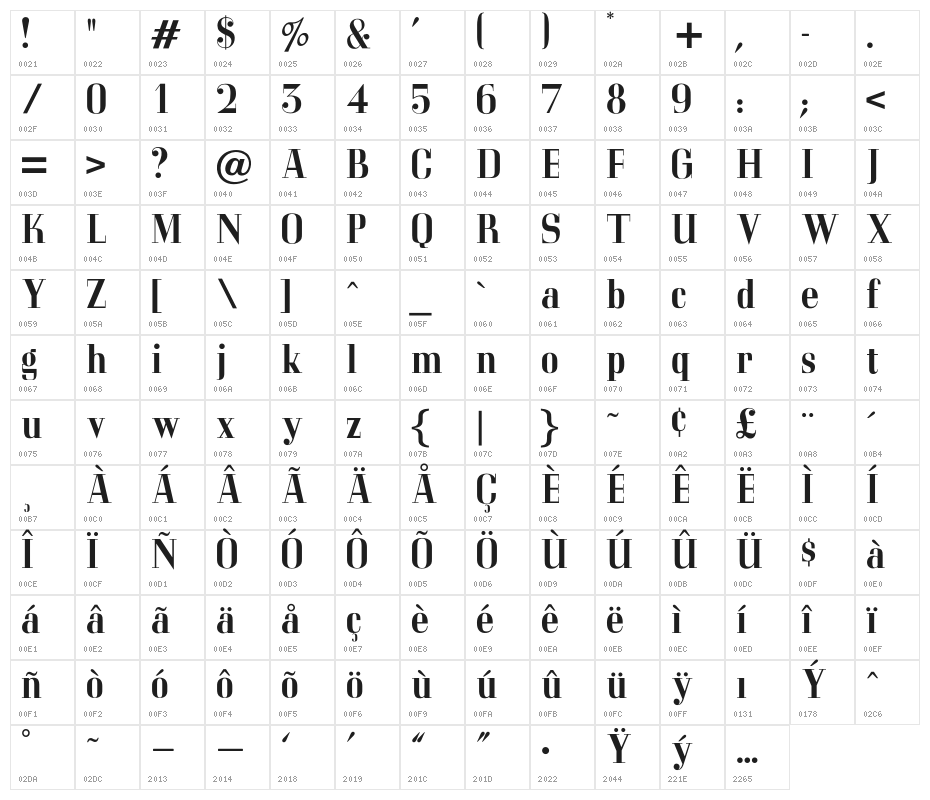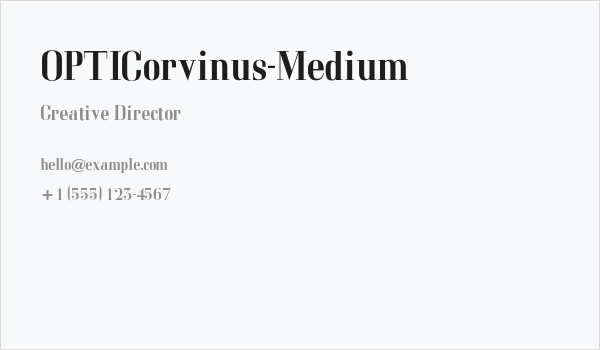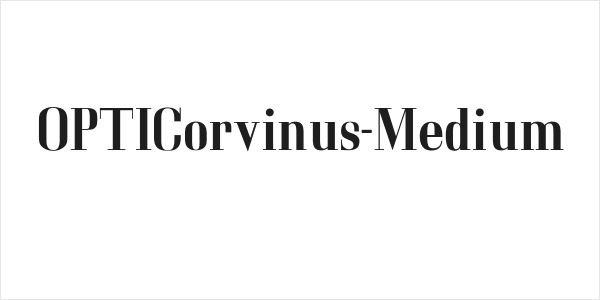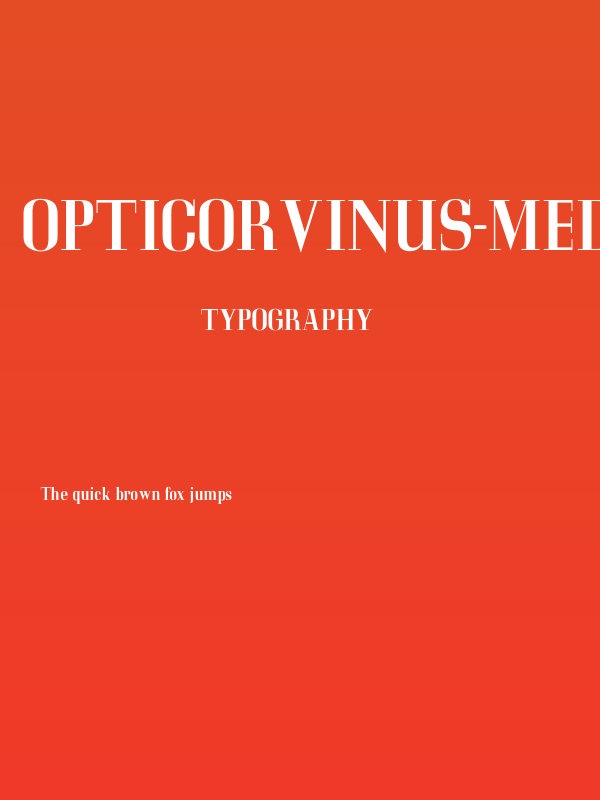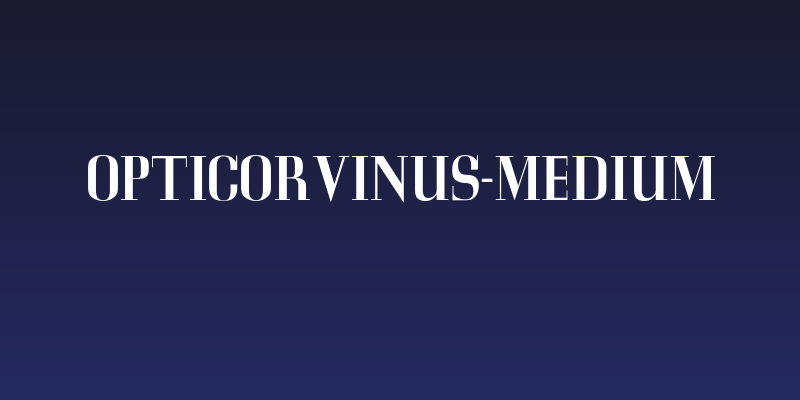
OPTICorvinus-Medium Font
OPTICorvinus-Medium Description
This font features a bold and striking design with high contrast between thick and thin strokes, giving it a dramatic and elegant appearance. The uppercase letters are tall and commanding, while the lowercase letters maintain a consistent style with slightly rounded edges, adding a touch of softness. The numerals are distinct and easy to read, with a classic feel that complements the overall aesthetic. Special characters are well-integrated, maintaining the font's cohesive look. This typeface is versatile, suitable for both modern and vintage-themed projects, and works well in various design contexts.
| Use Case | Headlines, Logos, Editorial design |
| Proposed Projects | Ideal for branding, editorial design, posters, and headlines where a strong visual impact is desired. |